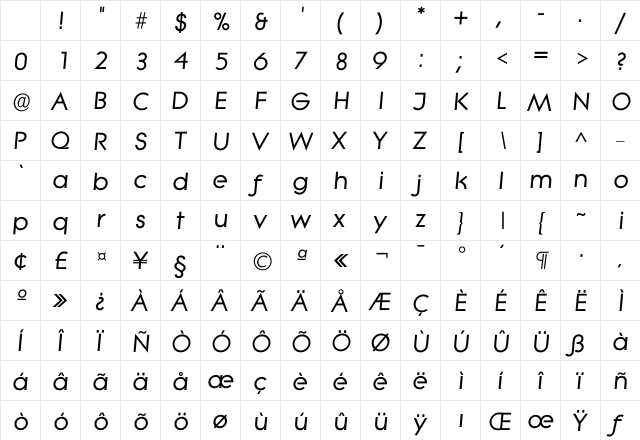
Complete Ilitera Bold glyph index. Displaying only characters natively supported by Ilitera Bold font.
Ilitera is a composed and adaptable typeface that performs quietly and consistently across a wide range of design contexts. Its bold stroke weight gives it real presence on the page.